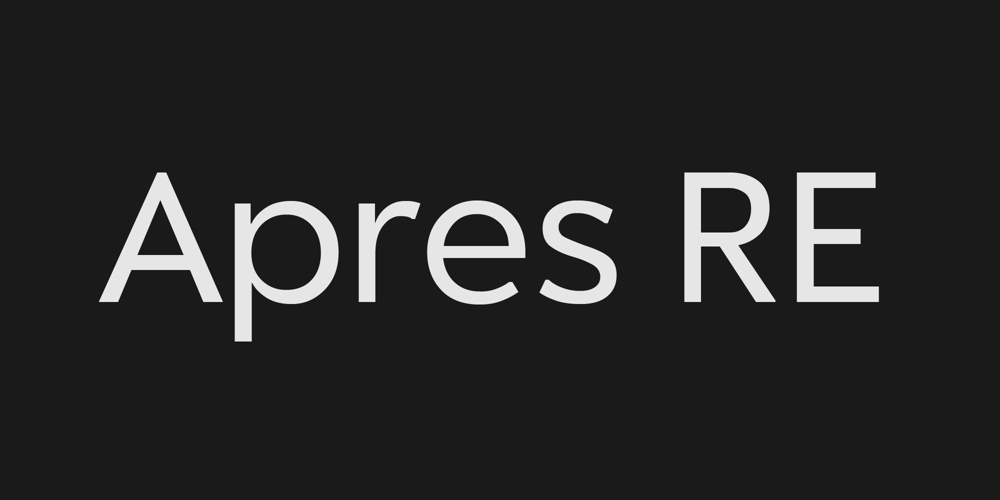
Apres RE Font Family was designed by David Berlow and published by Font Bureau. Apres RE contains 4 styles and family package options. Apres is a clear and comfortable typeface from David Berlow, originally designed for the Palm Pre smart phone. This humanist geometric design projects a friendly and forthright familiarity, without being static or mechanical. This version of the family is part of the Reading Edge series of fonts specifically designed for small text onscreen, having been adjusted to provide more generous proportions and roomier spacing, and having been hinted in TrueType for optimal rendering in low resolution environments.